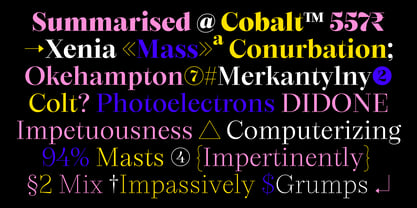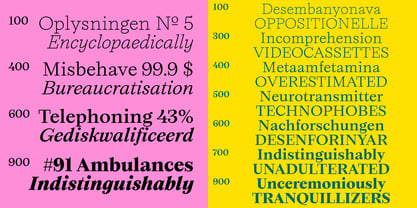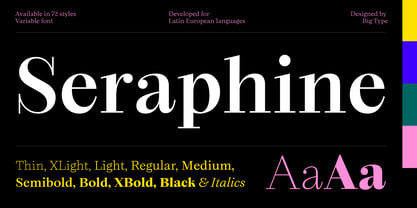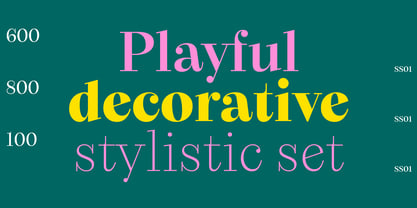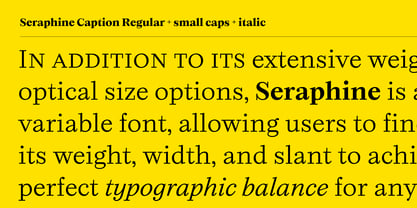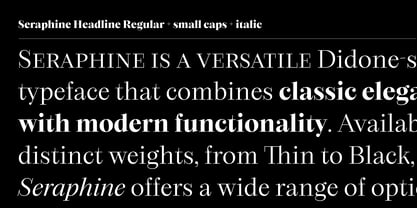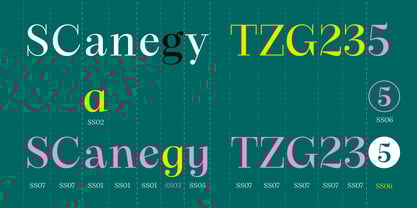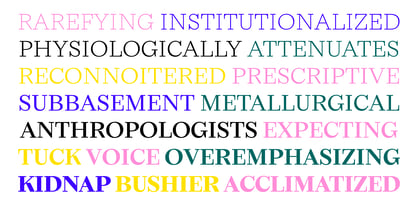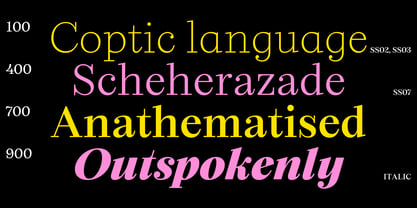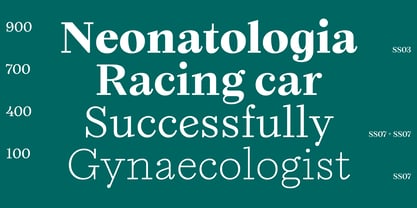
Seraphine
by Blaze Type
The Seraphine Font Family was designed by Karol Mularczyk and published by Blaze Type. Seraphine contains 72 styles and family package options. More about this family
Seraphine is a versatile Didone-style typeface that combines classic elegance with modern functionality. Available in 9 distinct weights, from Thin to Black, Seraphine offers a wide range of options for any design need. The font is meticulously crafted in 4 different optical sizes, ensuring excellent readability across both small and large text. It also includes true italics, preserving the sophisticated slant and flow characteristic of traditional Didone design.
In addition to its extensive weight and optical size options, Seraphine is a fully variable font, allowing users to fine-tune its weight, width, and slant to achieve the perfect typographic balance for any project. The font also includes a set of decorative stylistic sets, which expand its creative potential, making it suitable for both classic editorial designs and modern branding or packaging work.
Seraphine seamlessly merges timeless style with cutting-edge font technology, making it a powerful tool for any designer looking for sophistication, flexibility, and an expanded set of possibilities.
Designers: Karol Mularczyk
Current Foundry: Blaze Type